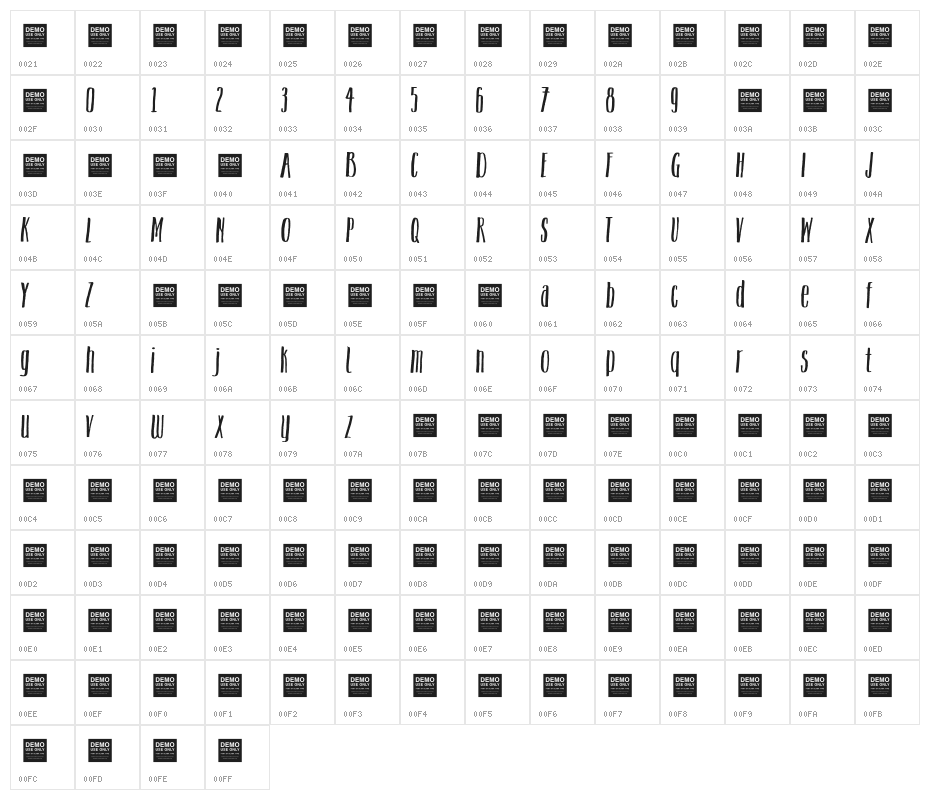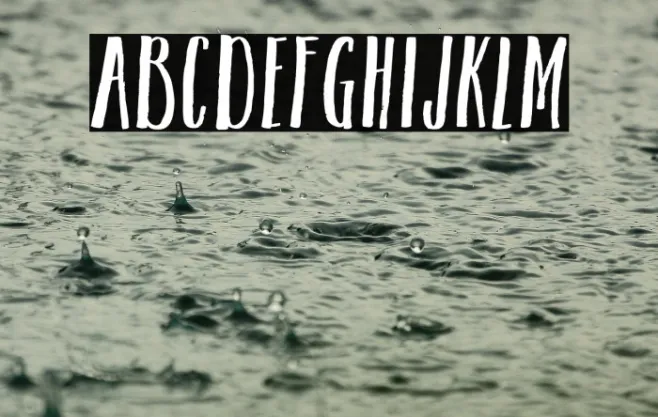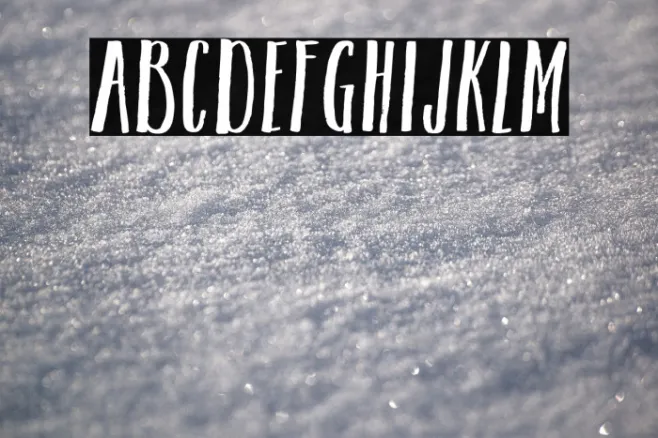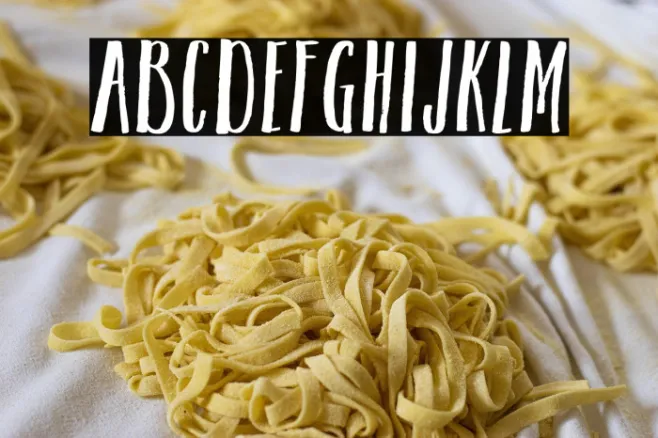
Spot Light Font
Spot Light Description
This font exhibits a bold and expressive style with a hand-drawn appearance. The characters are slightly elongated with a brush-like texture, giving them a dynamic and artistic feel. The uppercase letters are tall and narrow, while the lowercase letters maintain a consistent style, enhancing the font's cohesive look. The numerals are clear and match the overall aesthetic, making them suitable for various design applications. The special characters are crafted with the same attention to detail, ensuring they blend seamlessly with the rest of the font. This font's unique style makes it ideal for projects that require a touch of creativity and flair.
SPOT-LIGHT UPPERCASE
SPOT-LIGHT LOWERCASE
SPOT-LIGHT OTHER CHARS
| Overall Style | Artistic and expressive |
| Proposed Projects | Ideal for posters, branding, packaging, and creative design projects. |